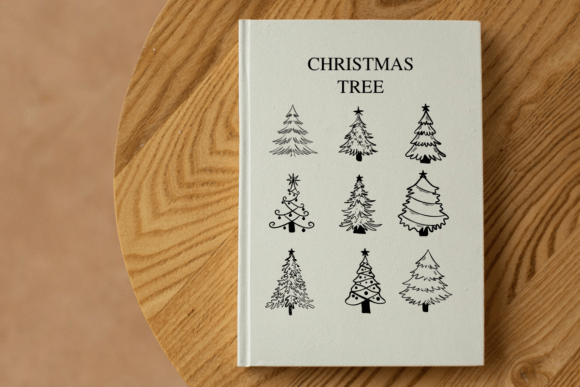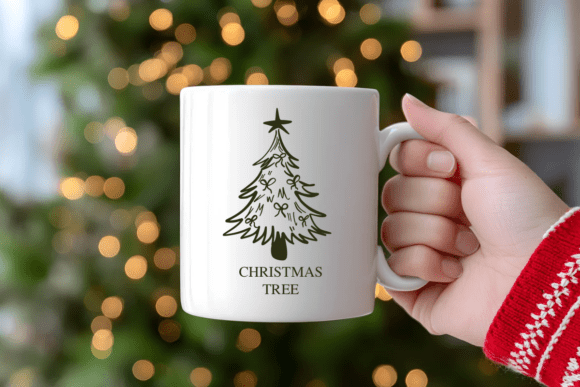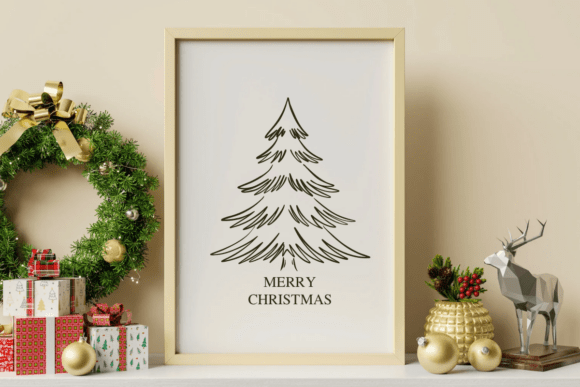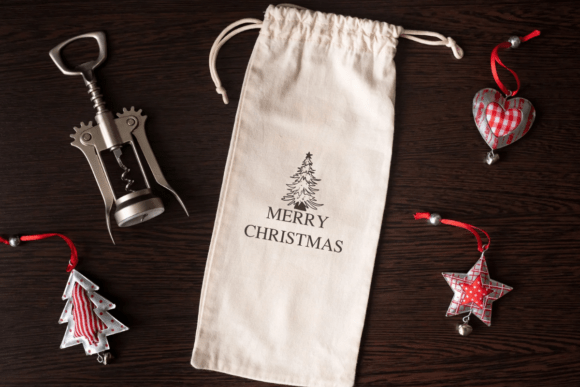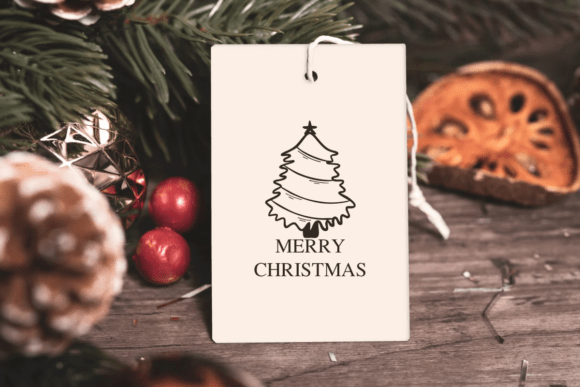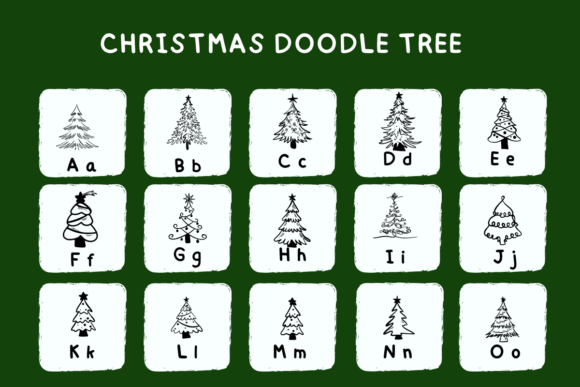
Introduction to Christmas Doodle Tree Font
Remember the thrill of rummaging through your grandmother’s craft box, uncovering hidden treasures like glitter glue, colored pencils, and intricately cut paper shapes? As a designer, you might not be rummaging through a physical box, but the excitement of discovering a new design resource is just as real. This time, it’s the Christmas Doodle Tree Font that’s got us beaming with joy!
This enchanting dingbats font is a masterclass in whimsical design, boasting a sketched aesthetic that’s equal parts playful and sophisticated. With its transparent background and high-quality design, it’s the perfect addition to any creative project. Whether you’re crafting custom wedding invites, designing DIY projects, or creating logos that stand out, the Christmas Doodle Tree Font is sure to be your new go-to design resource.
Key Features of Christmas Doodle Tree Font
- Unique and playful design perfect for creative projects and holiday-themed designs.
- Designed with a bold and whimsical style, ideal for adding a festive touch to greeting cards, invitations, and other design materials.
- Features a customizable design with various elements, allowing users to mix and match to create a one-of-a-kind look.
Honest Review: Christmas Doodle Tree Font
As a designer, I was excited to dive into the Christmas Doodle Tree Font to see if it would be a great addition to my design resources. The font offers a unique and playful take on traditional Christmas fonts, making it perfect for creative projects that need a bit of whimsy.
- ✨ Unique and creative design: The font is a one-of-a-kind addition to any design project, making it stand out from the crowd.
- ✨ High quality: The font is well-designed and looks great on a transparent background, making it easy to use in a variety of applications.
However, I did encounter a few limitations with the font:
- ⚠️ Limited character set: The font only includes a limited number of characters, which may not be sufficient for more complex design projects.
Overall, I was impressed with the Christmas Doodle Tree Font and think it would be a great addition to any designer’s collection. While it may have a few limitations, its unique design and high quality make it a valuable resource for creative projects.
Christmas Doodle Tree Font is perfect for creating festive designs, such as holiday cards, gift tags, or social media graphics. It’s also great for adding a personal touch to your branding materials, like logos or business cards.